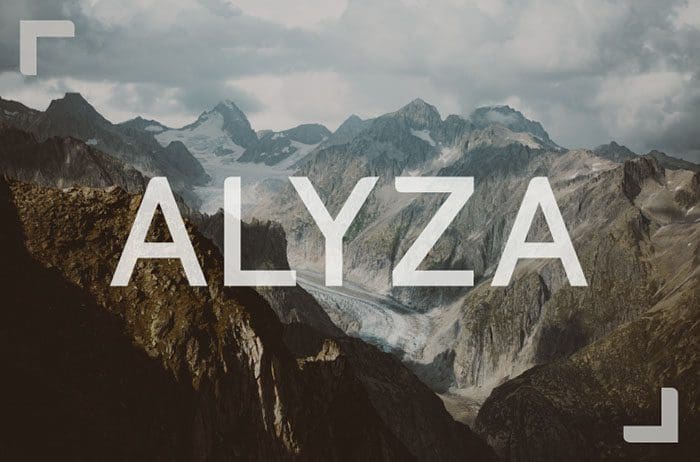
Alyza is a simple and casual sans serif font with an undeniably clean feel. With its neat and beautiful arrangement of letters, this typeface will look outstanding in both formal and non-formal designs. Thanks to Mas Anis for sharing this awesome font! Take a look on this portfolio for more of his stunning fonts.
Designed By : Mas Anis